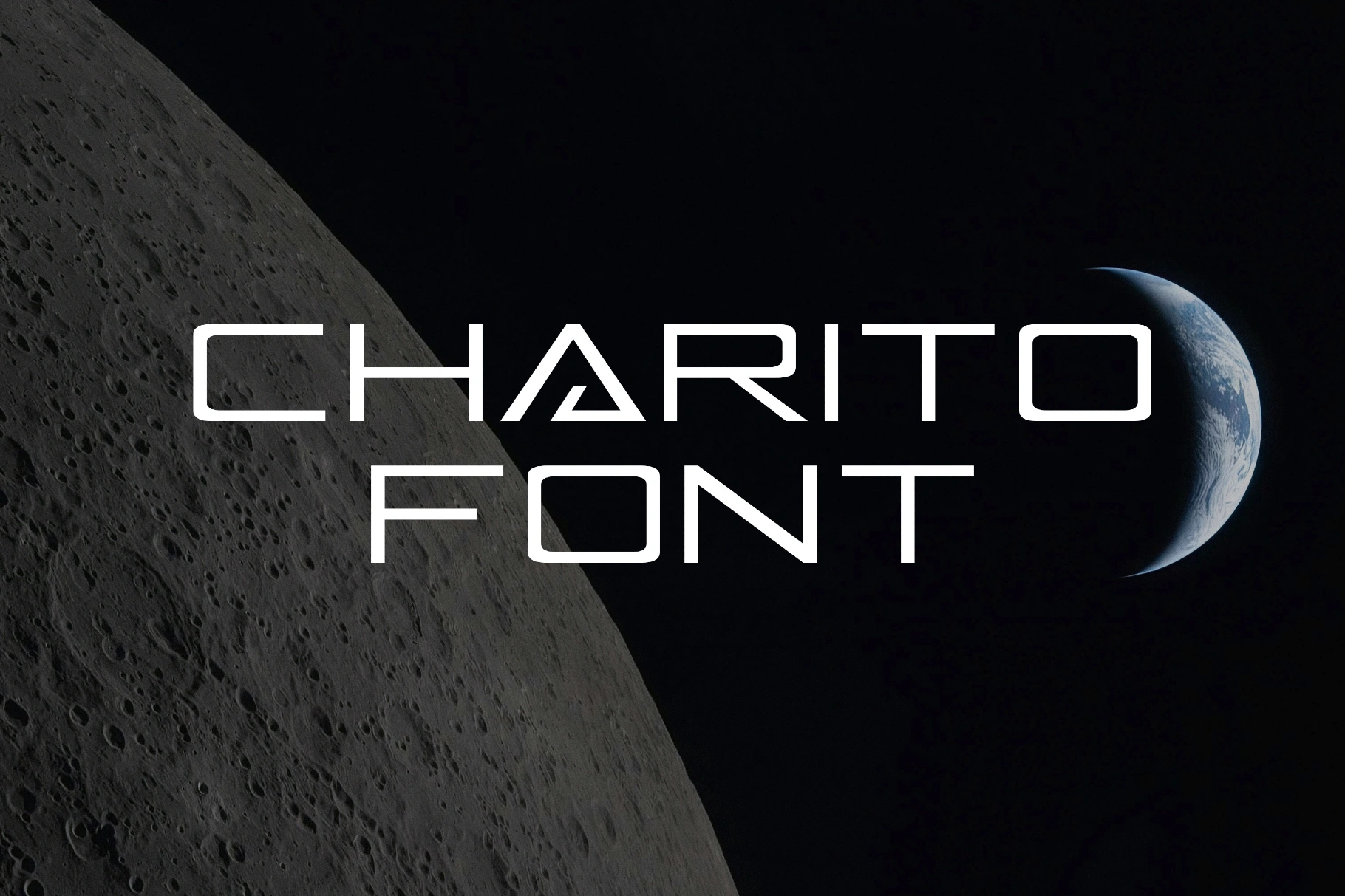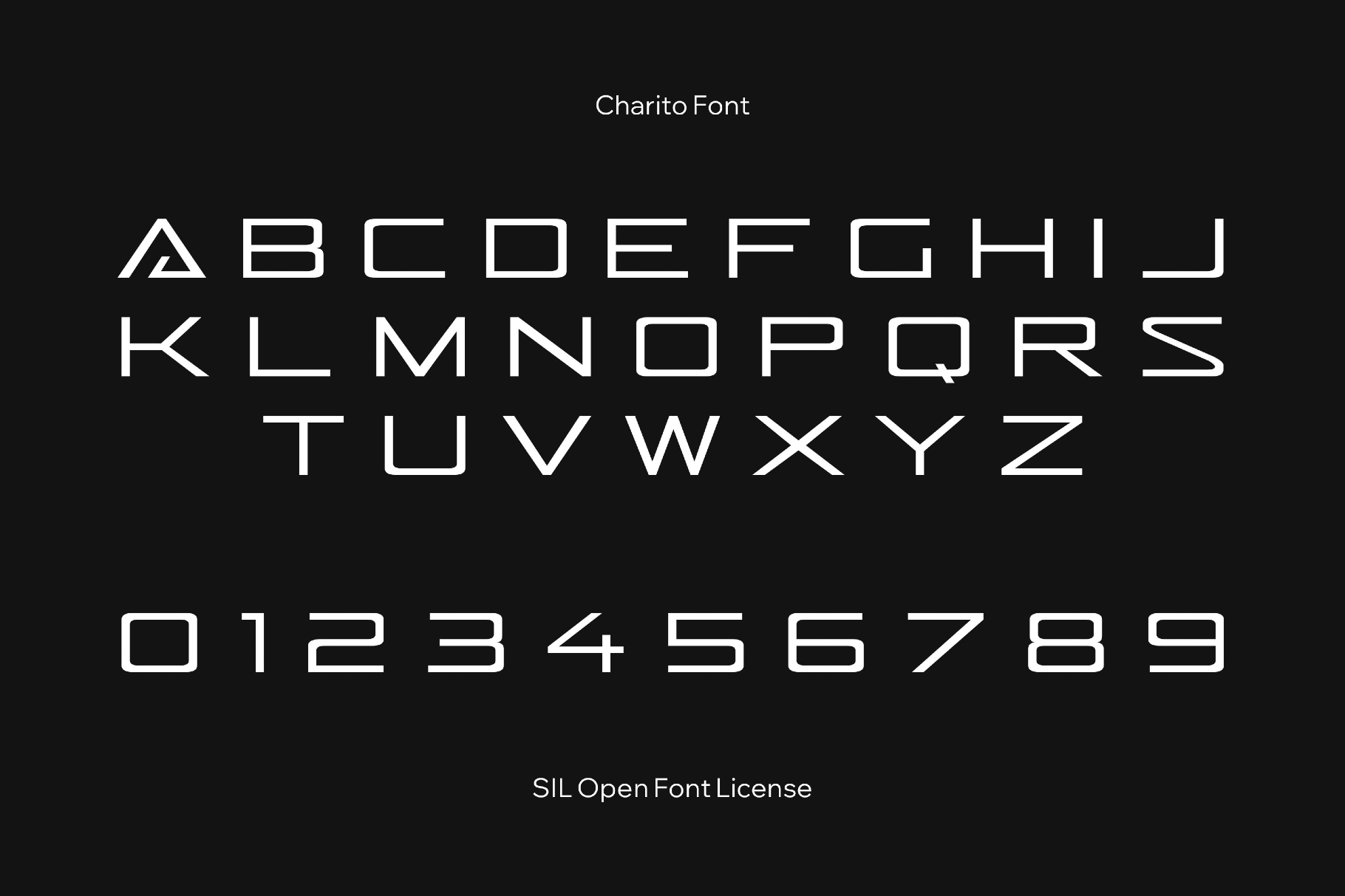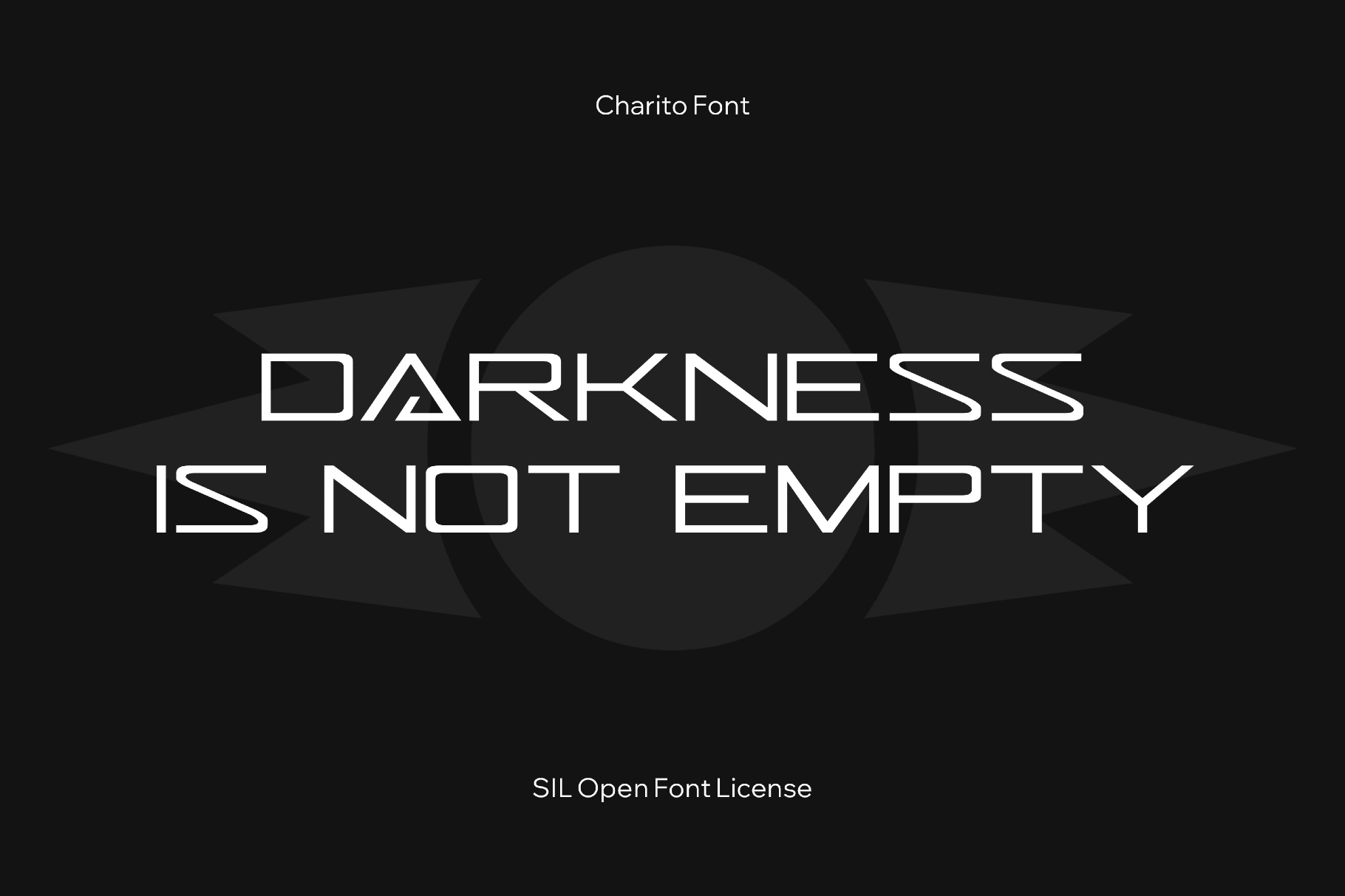
Charito Retro Space Font
Charito
“A long time ago in a galaxy far, far away…” — Charito could easily flash across the screen at the start of a retro sci-fi film — probably right before a spaceship quietly drifts into frame and something goes wrong. Its wide, angular shapes, rectangular forms, and sharp geometry fit naturally into space-themed posters, game titles, tech branding, interface graphics, motion intros, album covers, and visual identities.
- uppercase letters;
- numbers, punctuation, dingbats, and symbols;
- multilingual support across an extended Latin, Cyrillic, Armenian, Georgian, Arabic, Hebrew, Greek, and Braille scripts;
- ligatures.